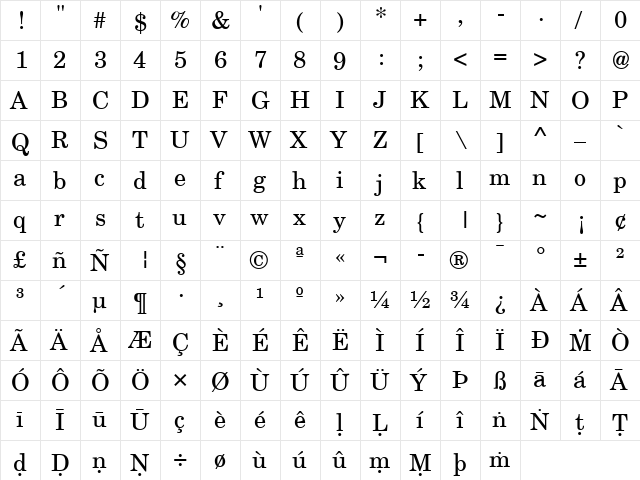
NCS CSXpali Regular
| Foundry | by URW |
Design Context for NCS CSXpali Typeface
NCS CSXpali offers clean, dependable letterforms without strong stylistic allegiance, making it a practical choice for designers who need flexibility.